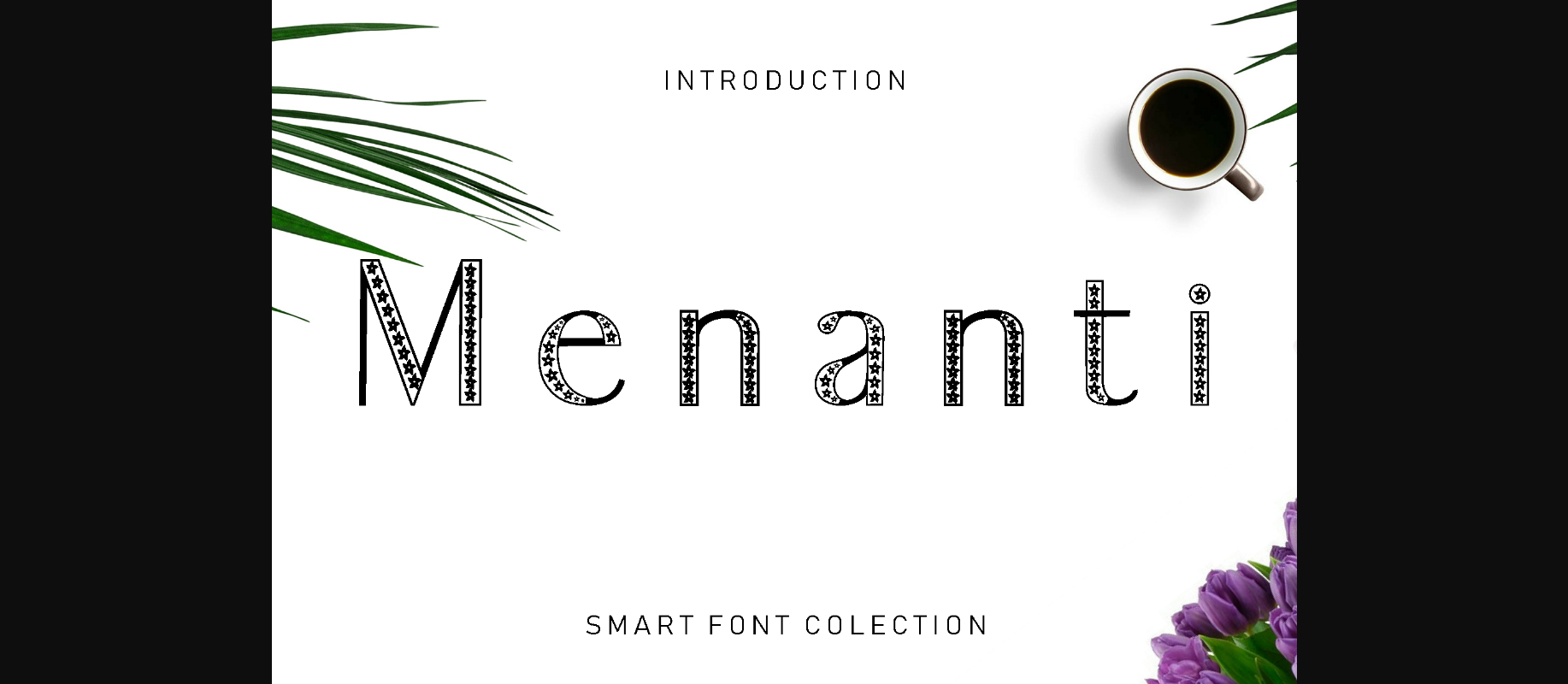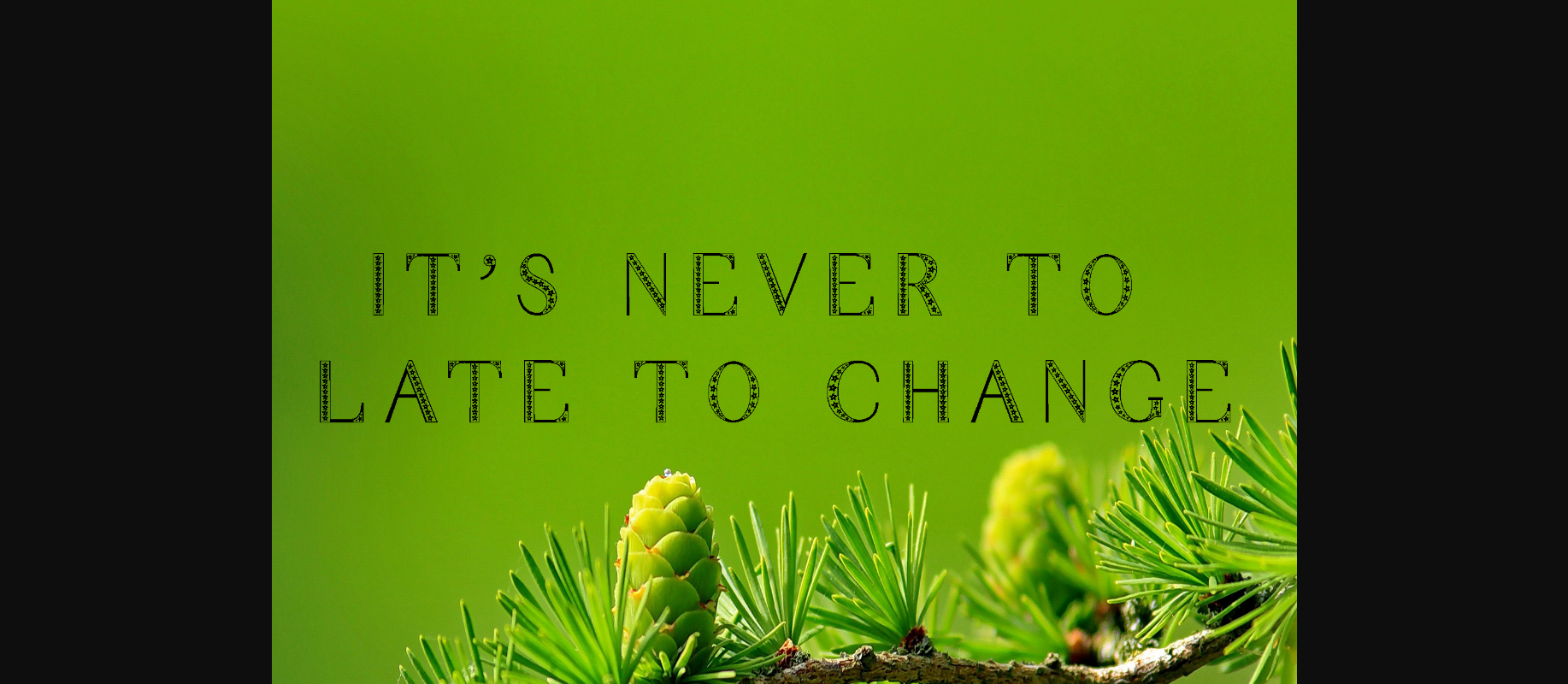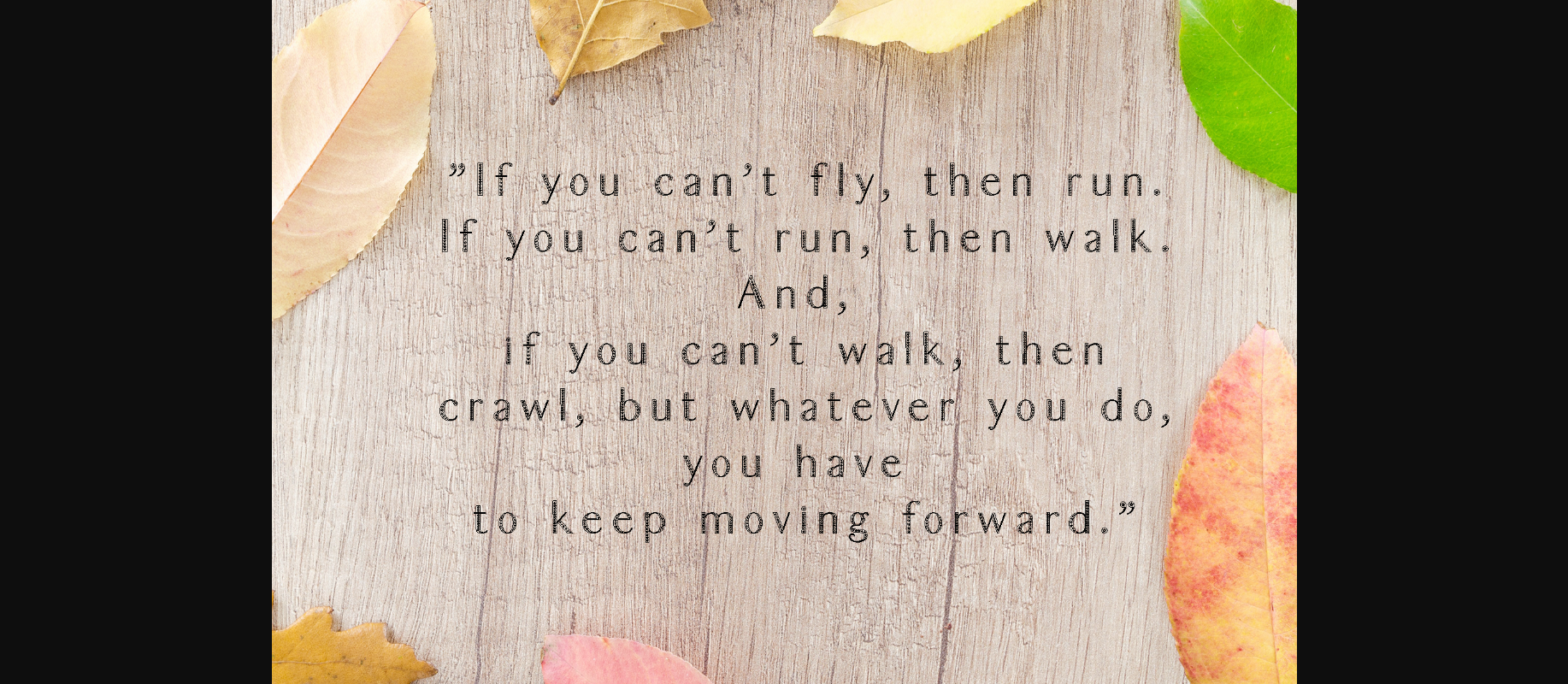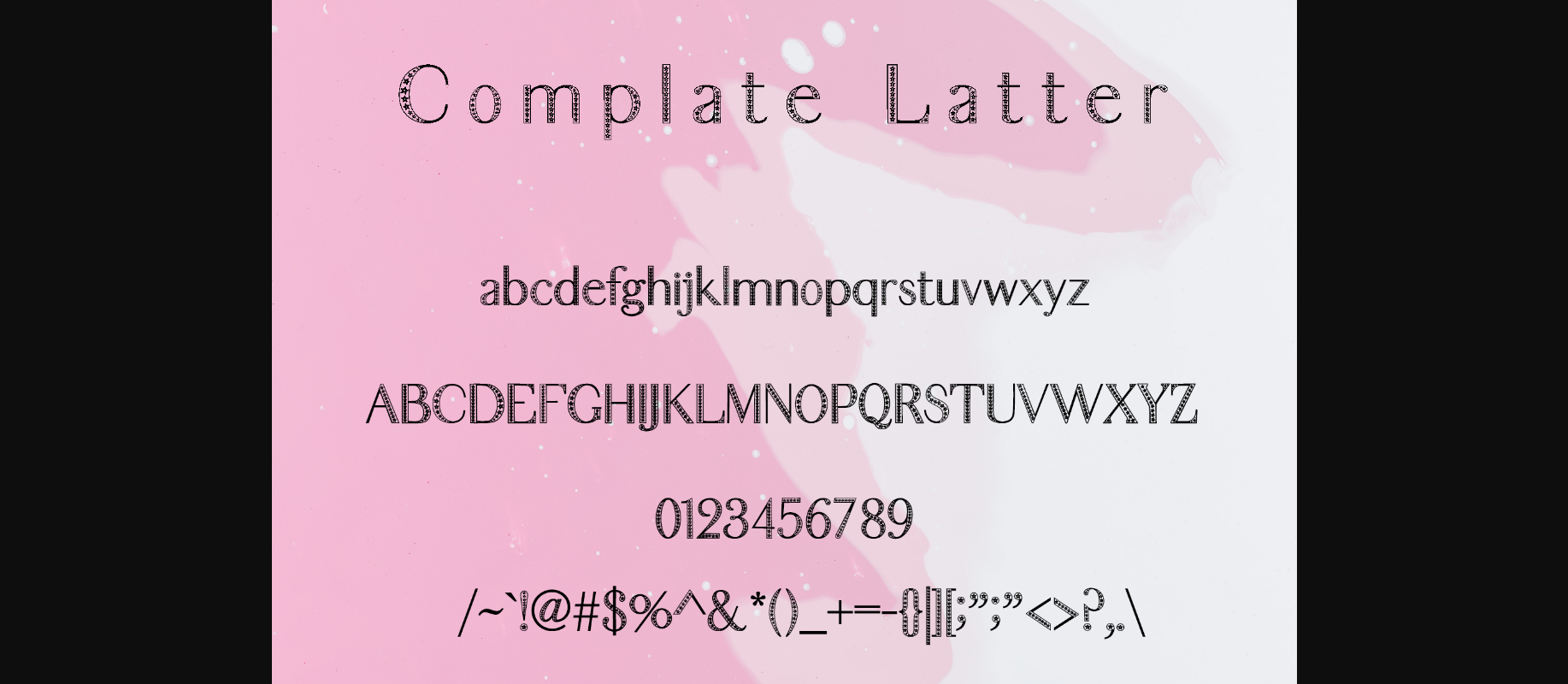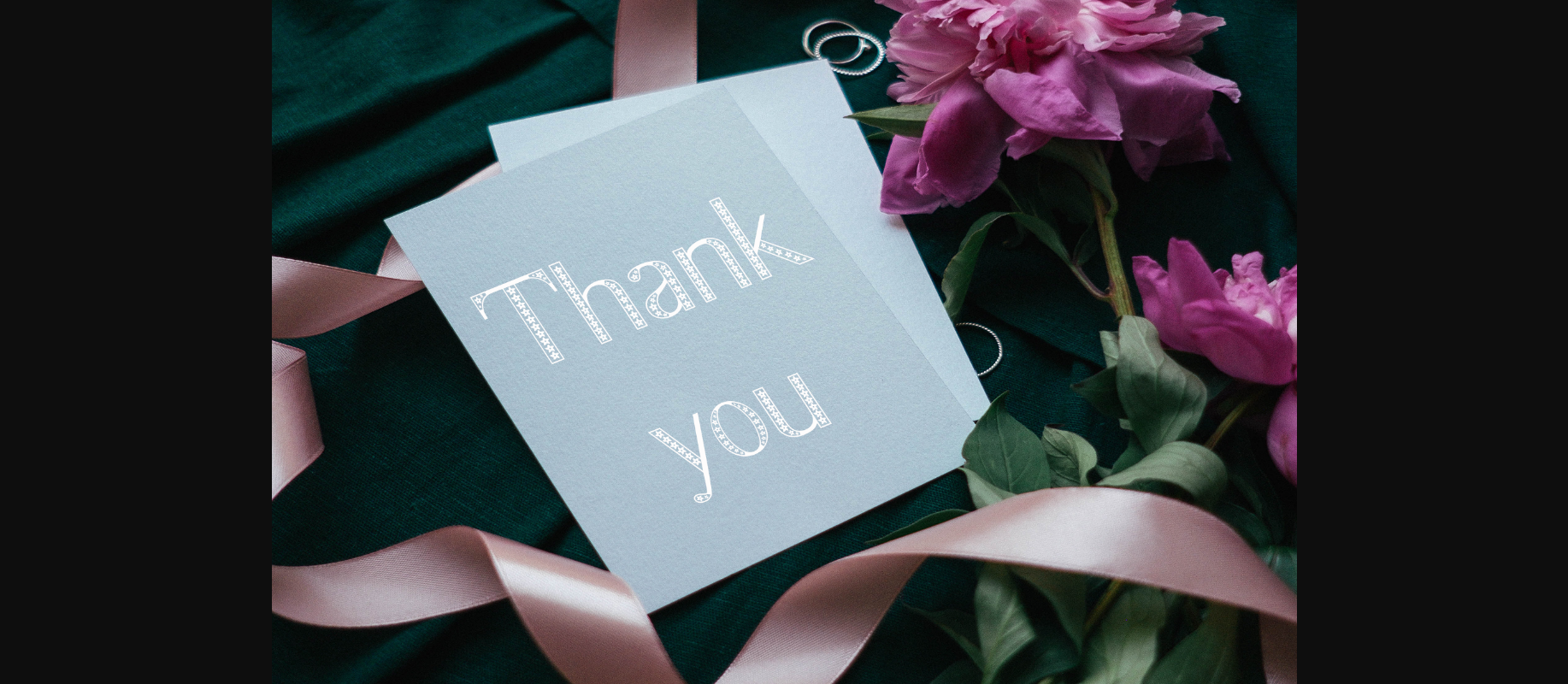
Menanti Font
About Menanti Font
Menanti is an incredibly unique and special decorative font, featuring star ornaments. Fall in love with its incredibly versatile style and use it to create spectacular designs!